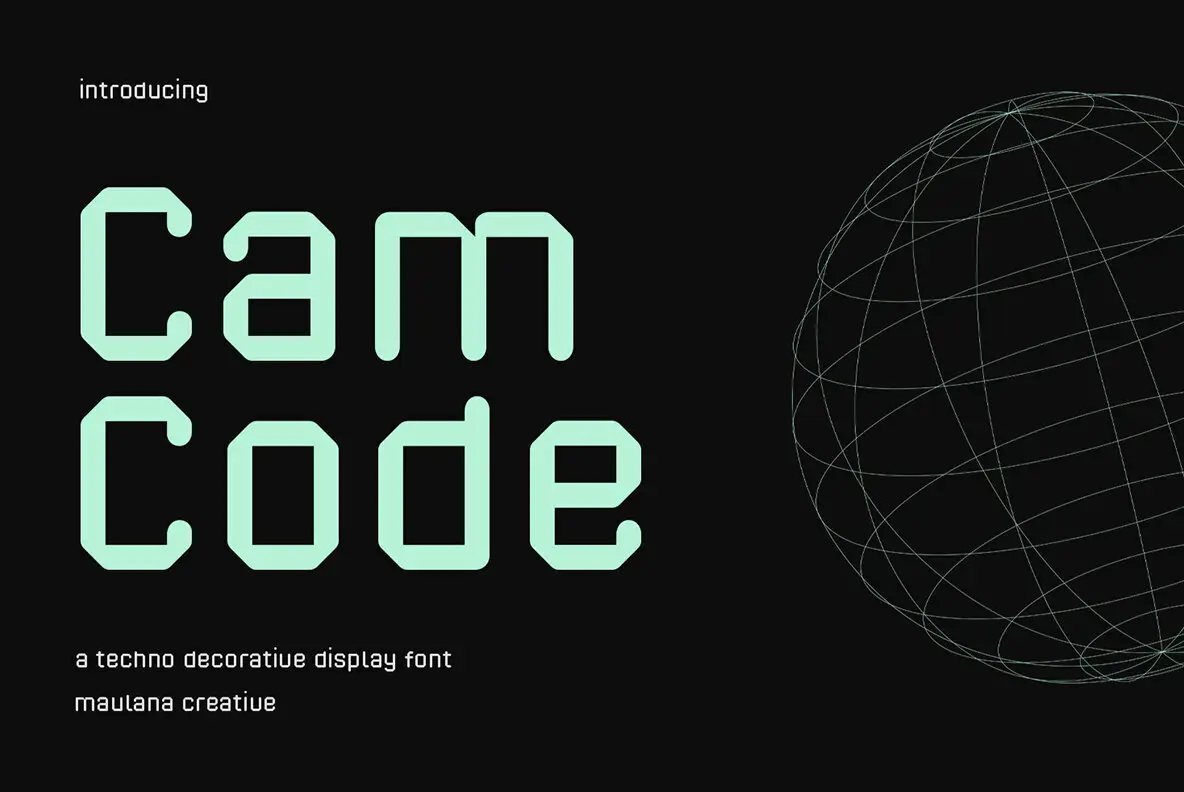
Camcode Font
Camcode is a highly versatile semi-Bitmap style Display sans font that features charming rounded edges and a regular stroke. With playful characters and a wide range of ligatures and alternates, this font offers an extra level of creative flexibility to your work. Camcode font also supports more than 100+ languages, making it the perfect choice for international projects. Whether you're designing a logo, creating social media content, crafting movie or book titles, or even writing long-form text, Camcode font will help your work stand out. Additionally, it's an excellent choice for secondary text font in combination with script or serif fonts. Elevate your design game with the stunning Camcode font.